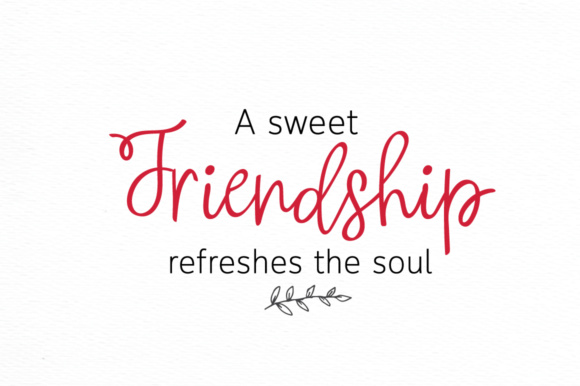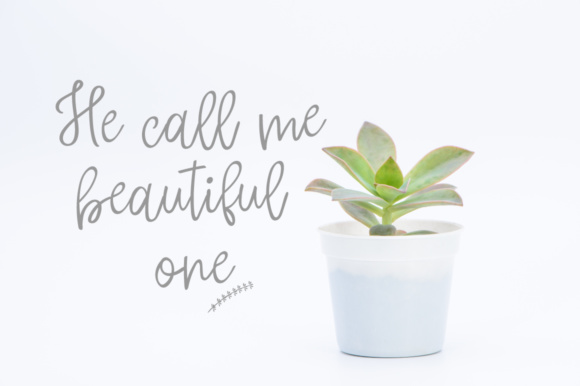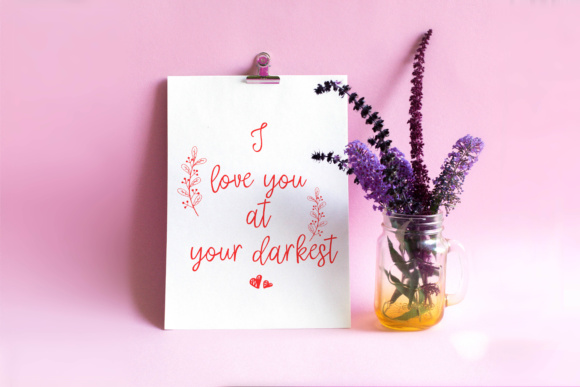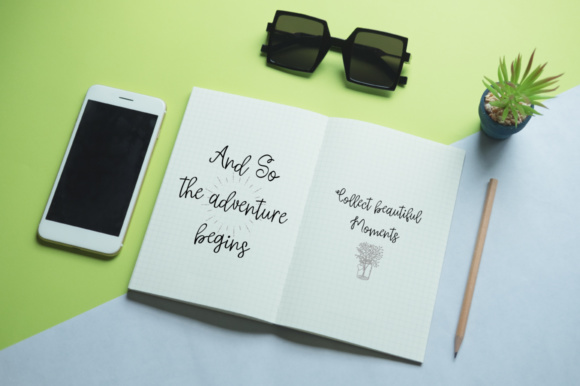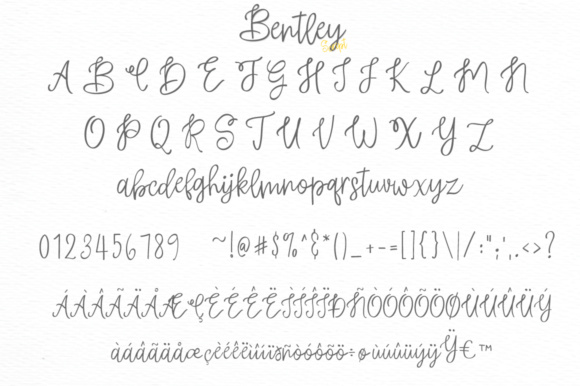
Bentley Font: Elevate Your Designs with a Lovely Handwritten Brush Script
Are you a designer or crafter looking for a unique and elegant font to elevate your projects? Look no further than the Bentley Font, a beautiful handwritten brush script that’s perfect for branding, decorating, and adding a touch of sophistication to your work. In this article, we’ll dive into the world of Bentley Font, exploring its features, uses, and benefits, as well as provide tips and inspiration for incorporating it into your designs.
The Bentley Script: A Lovely Handwritten Brush Script
The Bentley script is a lovely handwritten brush script that’s ideal for branding and decorating your projects. With its fluid, cursive strokes and charming imperfections, this font is sure to add a touch of warmth and personality to your designs. Whether you’re working on a logo, packaging, or social media graphics, the Bentley Font is a versatile and stylish choice that’s sure to impress.
Features and Benefits of Bentley Font
So, what makes the Bentley Font so special? Here are just a few of its key features and benefits:
- Handwritten brush script: The Bentley Font features a beautiful, handwritten brush script that’s perfect for adding a touch of elegance and sophistication to your designs.
- Unique and distinctive: With its fluid strokes and charming imperfections, the Bentley Font is a unique and distinctive choice that’s sure to stand out from the crowd.
- Versatile: Whether you’re working on a logo, packaging, or social media graphics, the Bentley Font is a versatile choice that’s suitable for a wide range of design projects.
- Easy to read: Despite its elegant, cursive strokes, the Bentley Font is easy to read and understand, making it perfect for use in body text and other applications where legibility is key.
Uses for Bentley Font
So, what can you use the Bentley Font for? The possibilities are endless, but here are a few ideas to get you started:
- Branding: Use the Bentley Font to create a unique and memorable logo that’s sure to stand out from the crowd.
- Packaging: Add a touch of elegance and sophistication to your packaging with the Bentley Font.
- Social media graphics: Use the Bentley Font to create eye-catching social media graphics that are sure to grab attention.
- Invitations and stationery: Add a touch of warmth and personality to your invitations and stationery with the Bentley Font.
Tips for Using Bentley Font
Here are a few tips for using the Bentley Font in your designs:
- Use it sparingly: While the Bentley Font is beautiful, it can be a bit overpowering if used too much. Use it sparingly to add a touch of elegance and sophistication to your designs.
- Pair it with a sans-serif font: For maximum legibility, pair the Bentley Font with a sans-serif font like Arial or Helvetica.
- Experiment with colors: The Bentley Font looks beautiful in a range of colors, from bold and bright to soft and pastel. Experiment with different colors to find the perfect look for your design.
- Font bundles: Consider purchasing a font bundle that includes the Bentley Font, along with other beautiful and unique fonts.
In conclusion, the Bentley Font is a beautiful handwritten brush script that’s perfect for designers and crafters looking to add a touch of elegance and sophistication to their projects. With its unique and distinctive strokes, versatility, and ease of use, this font is sure to become a favorite in your design toolkit. So why not give it a try and see the difference it can make in your designs?